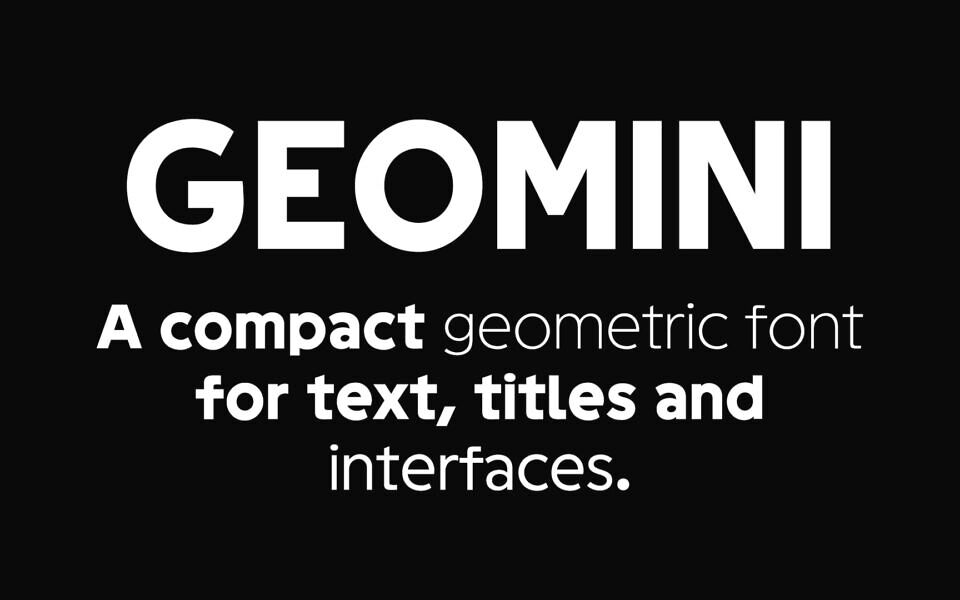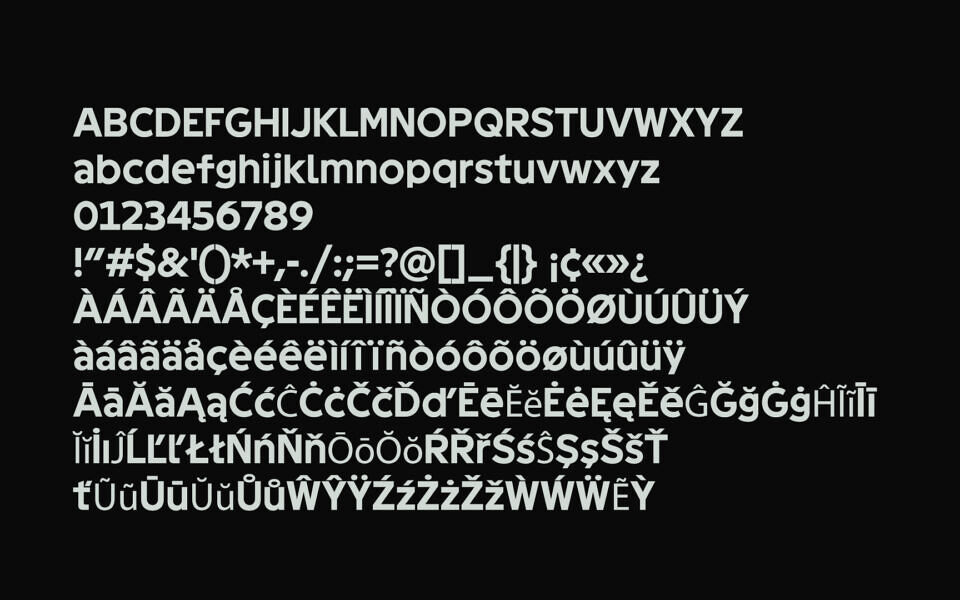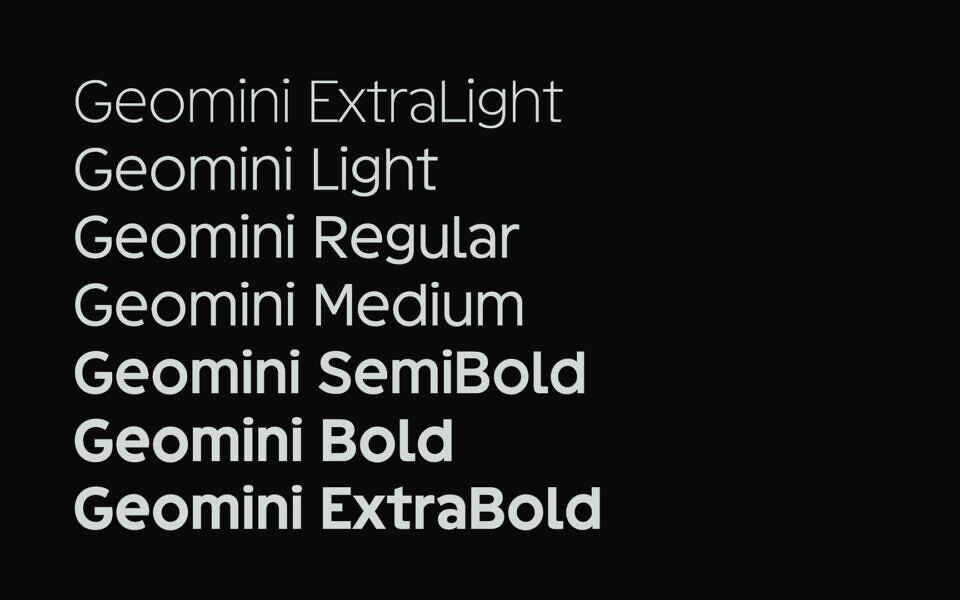
Geomini is a clean, geometric sans-serif typeface defined by its minimalistic design and balanced proportions. With uniform stroke widths and open letterforms, it delivers excellent readability and a modern, structured look.
Its simple yet refined style makes it highly versatile for branding, user interfaces, editorial layouts, and digital content. Geomini works well for both headlines and body text, offering a sleek, contemporary feel across a wide range of design projects.